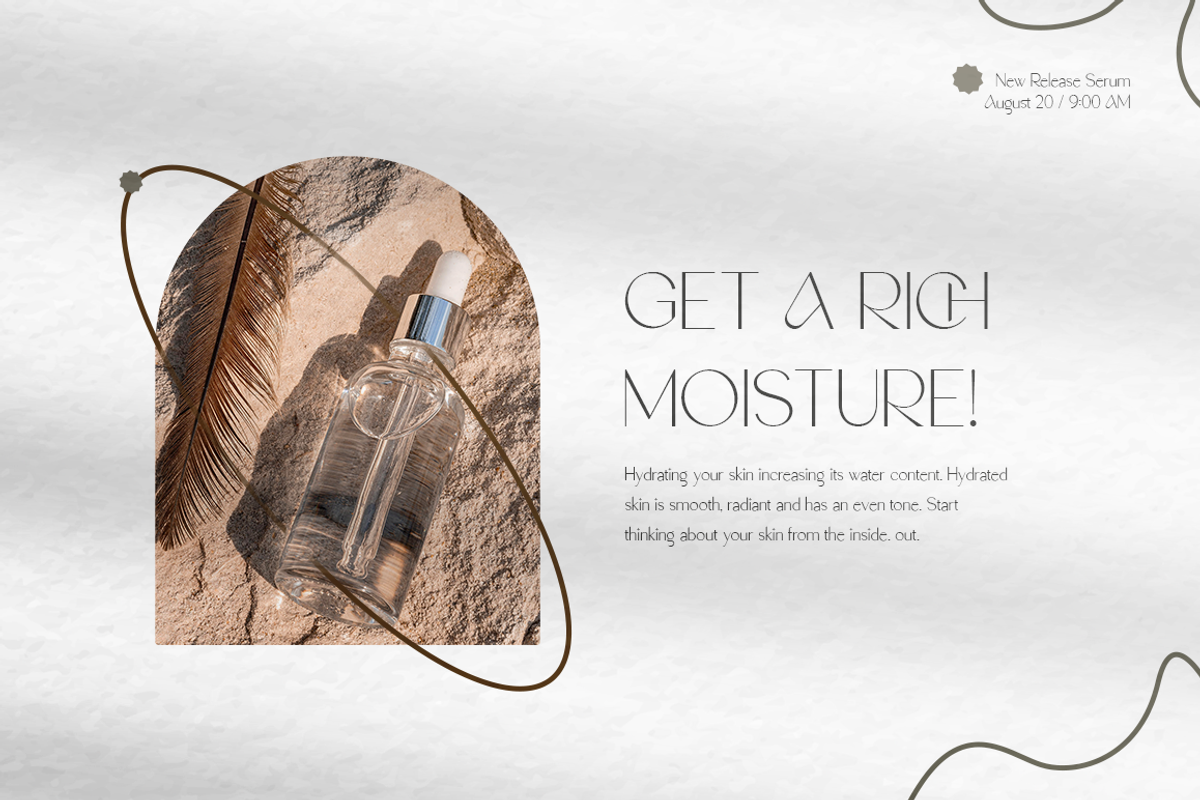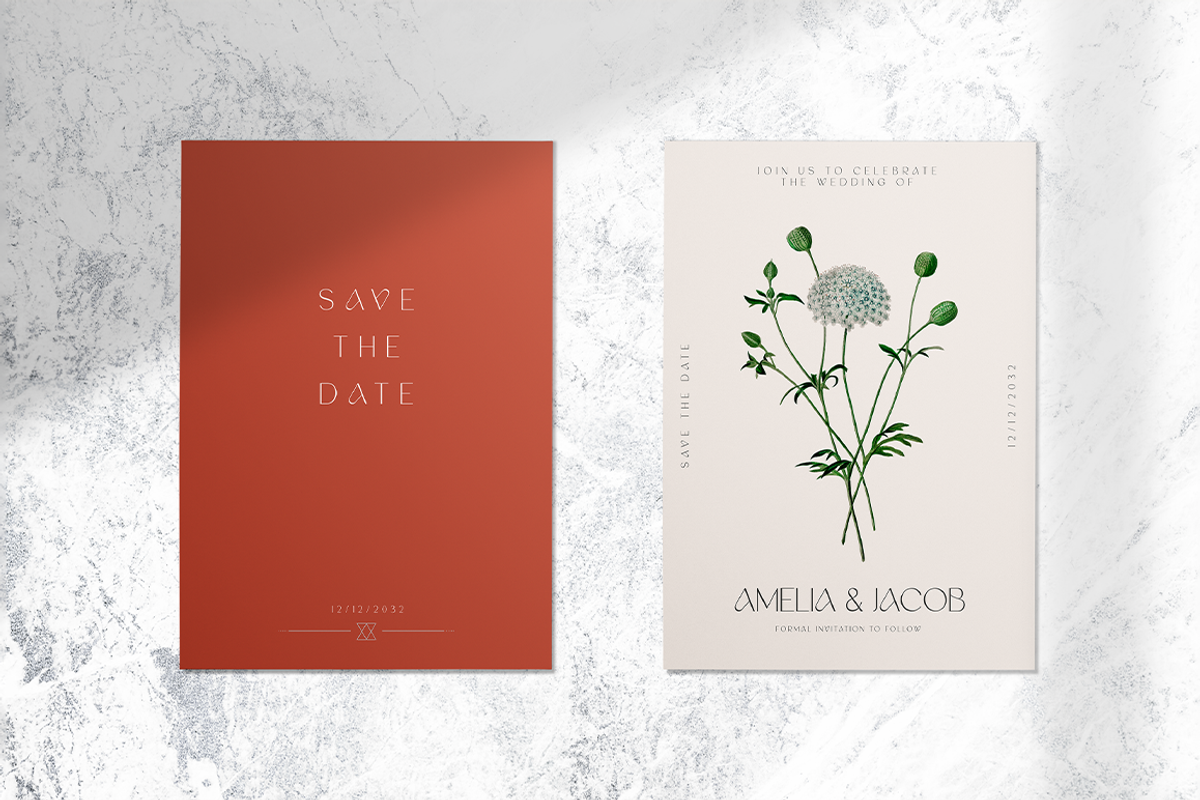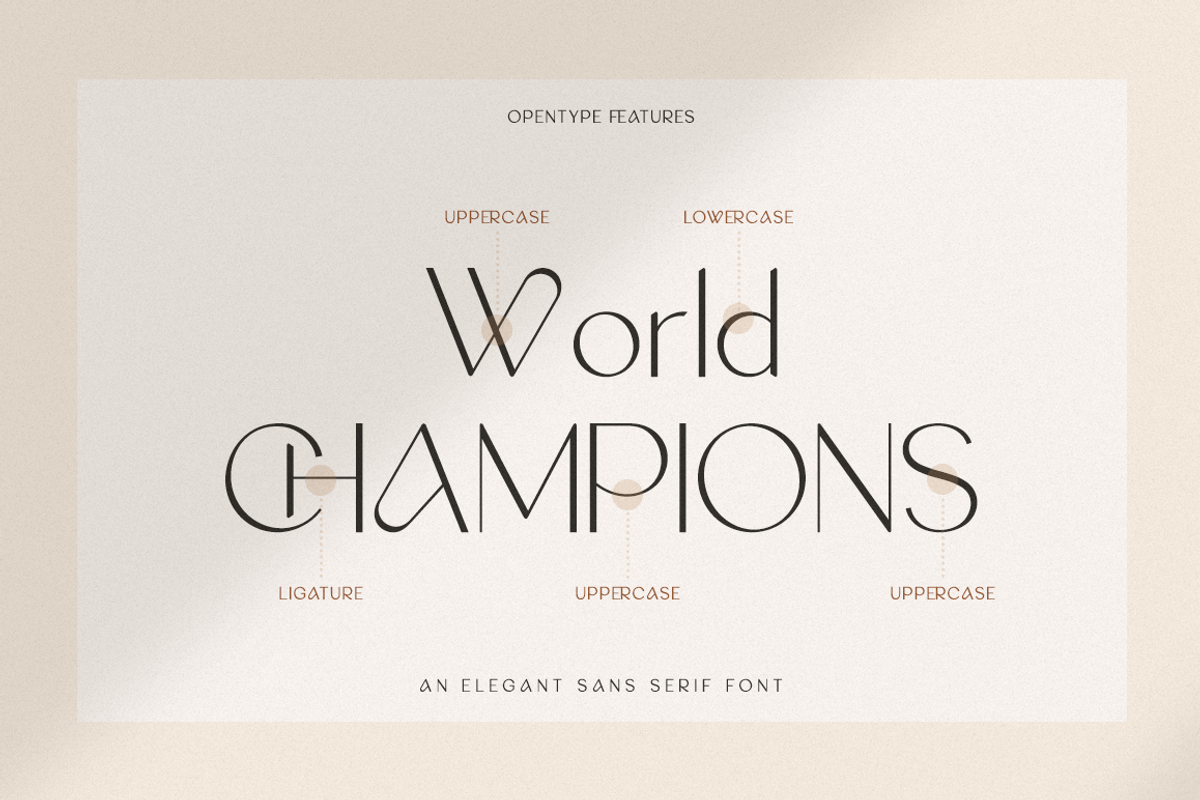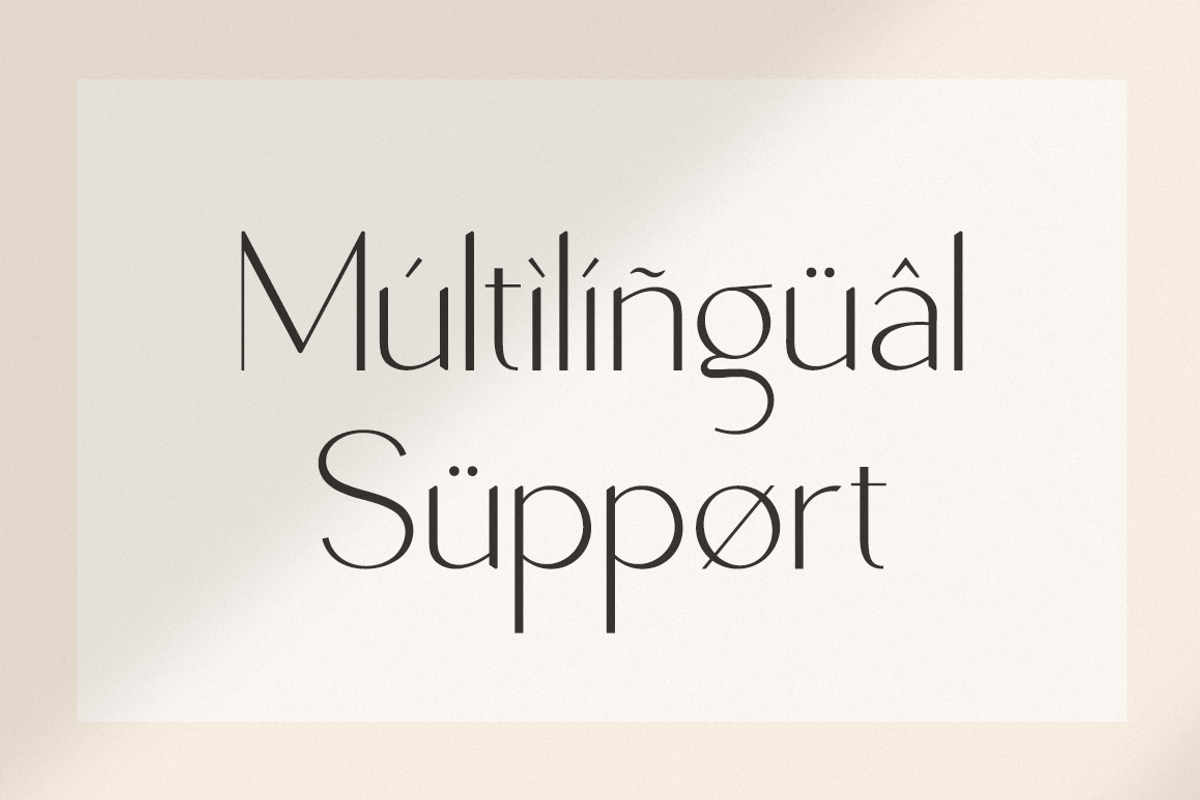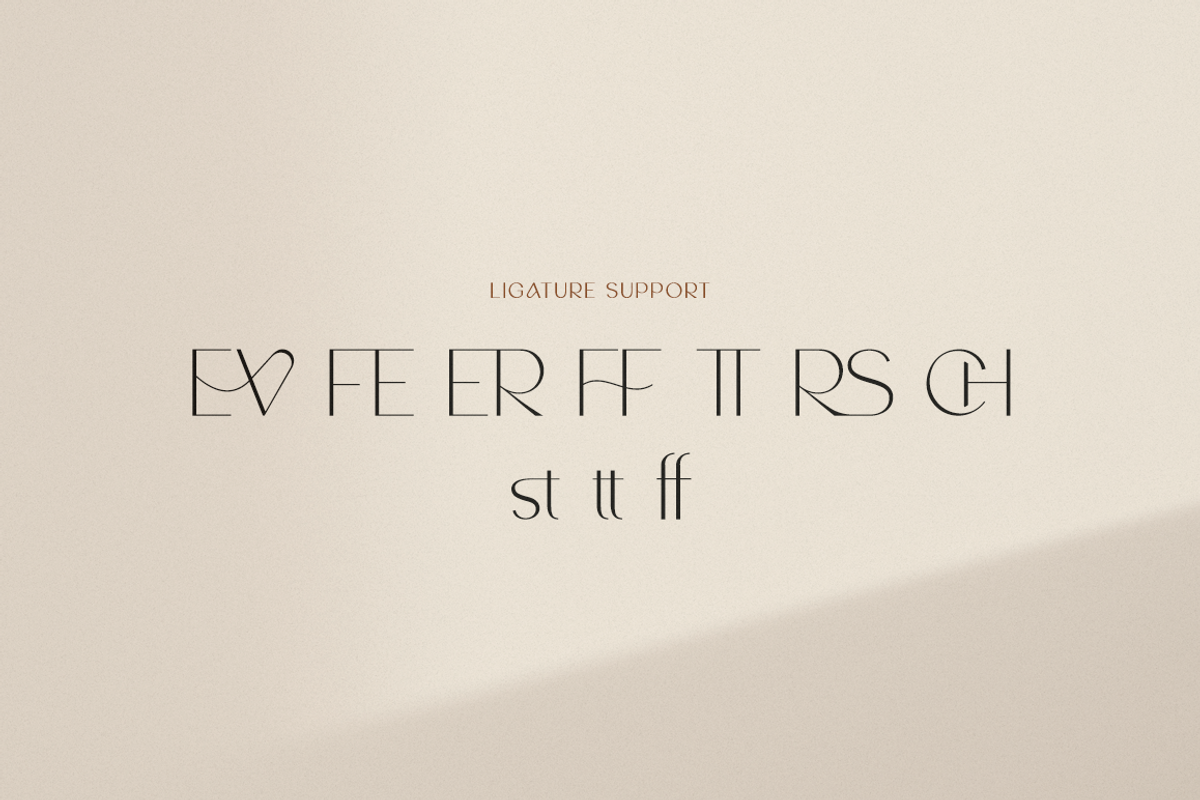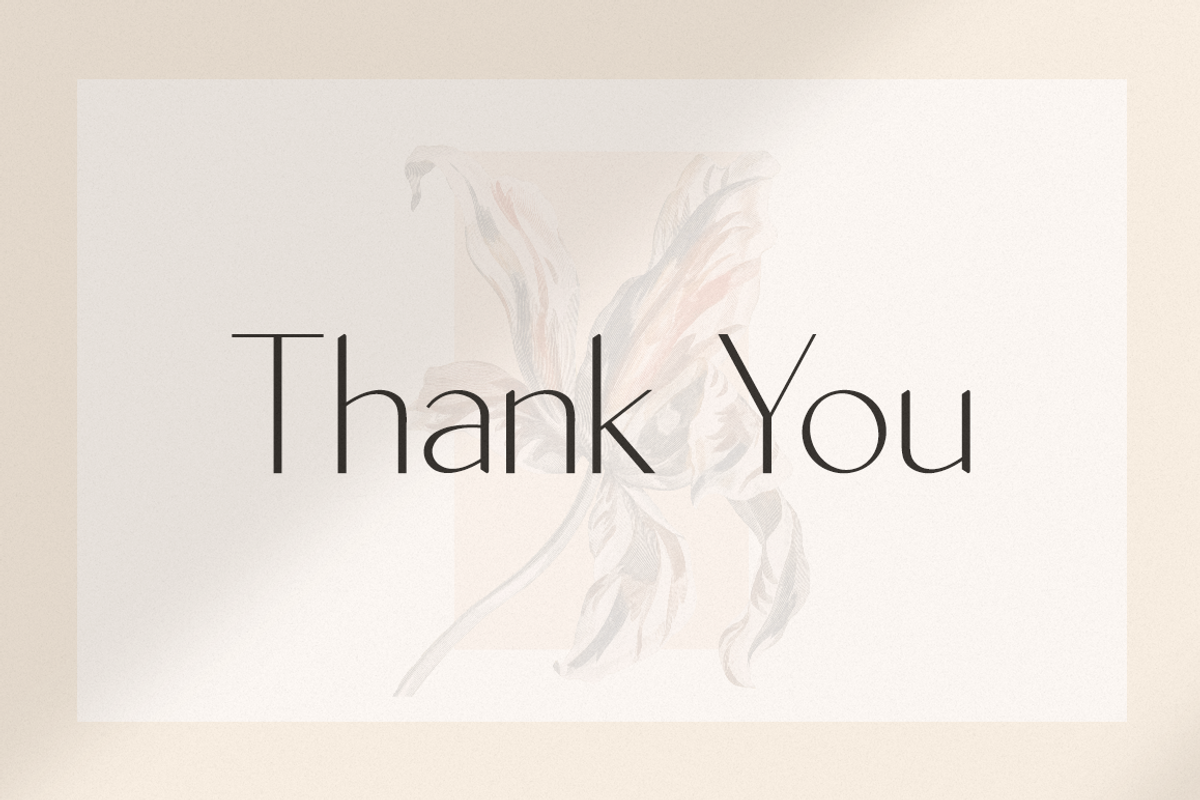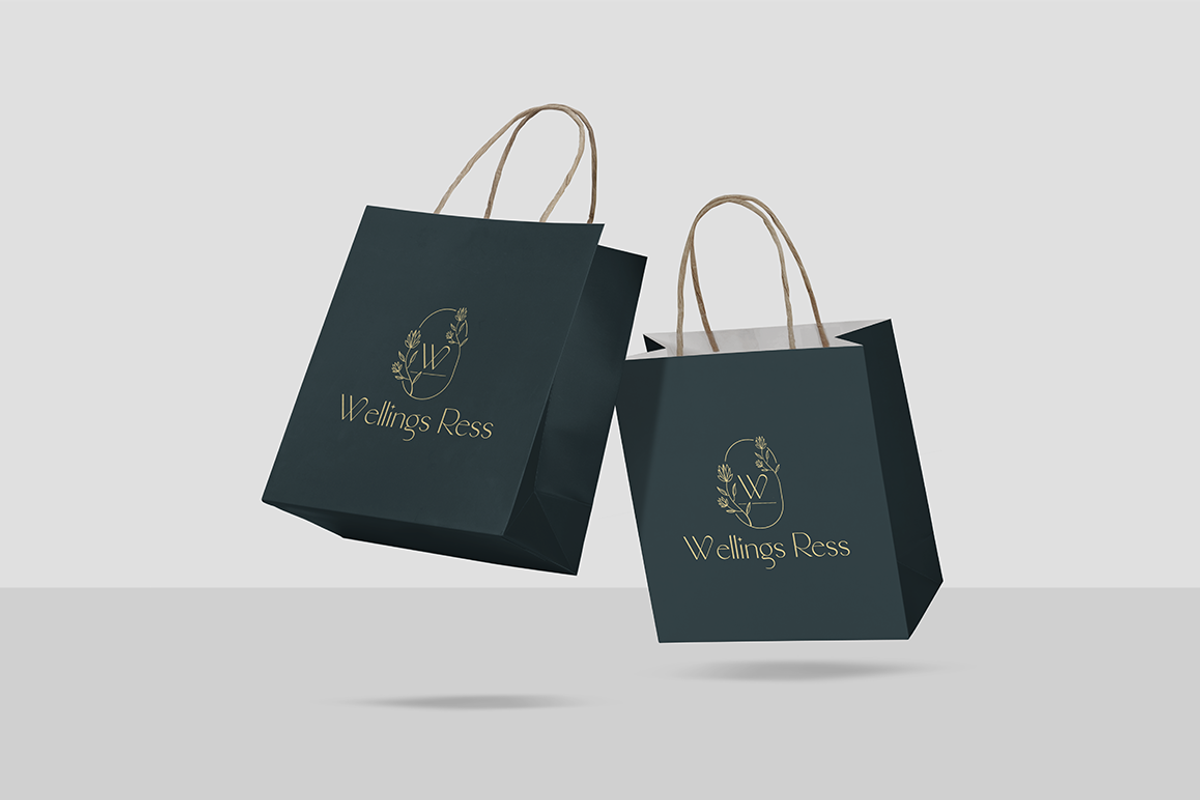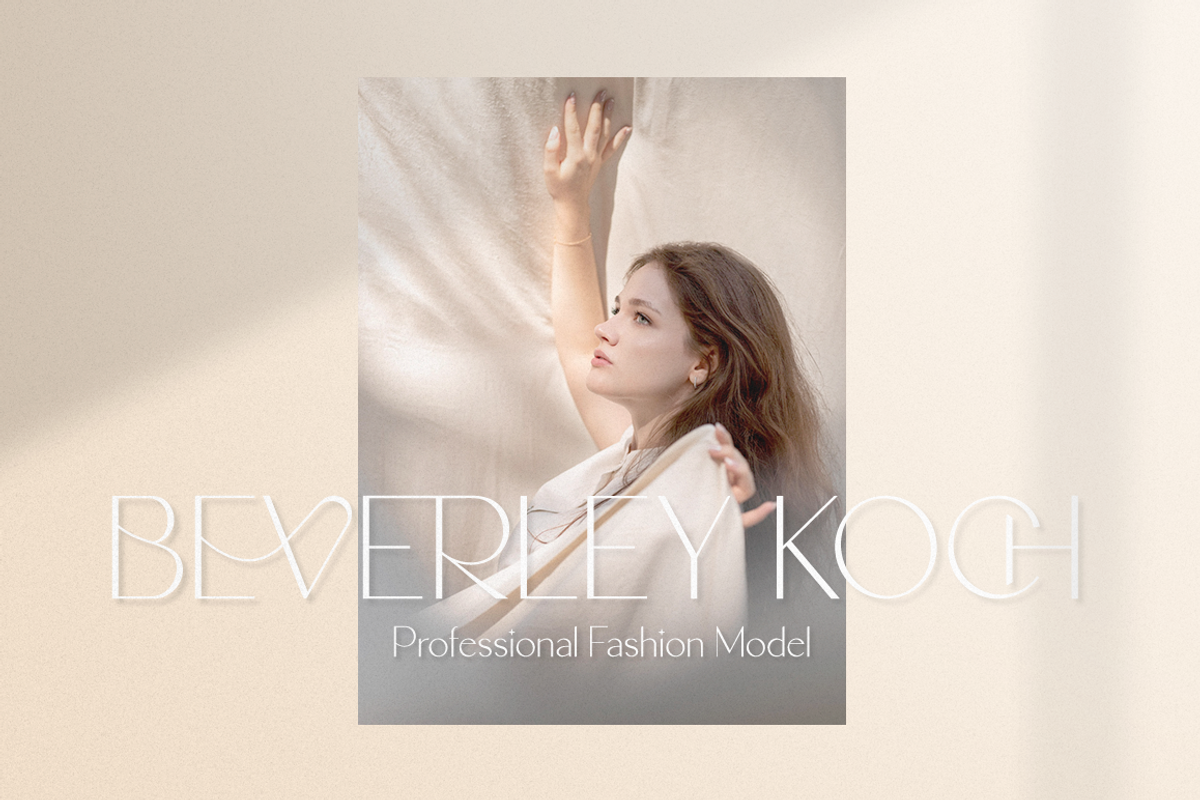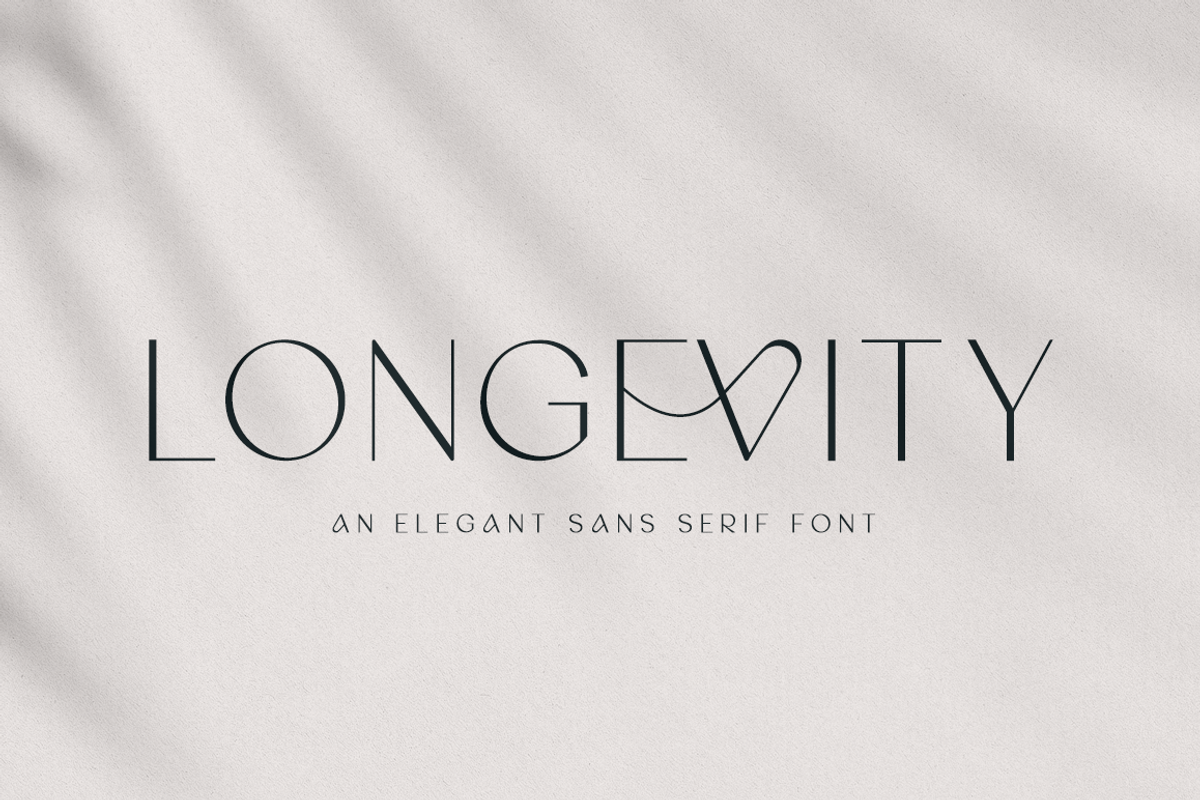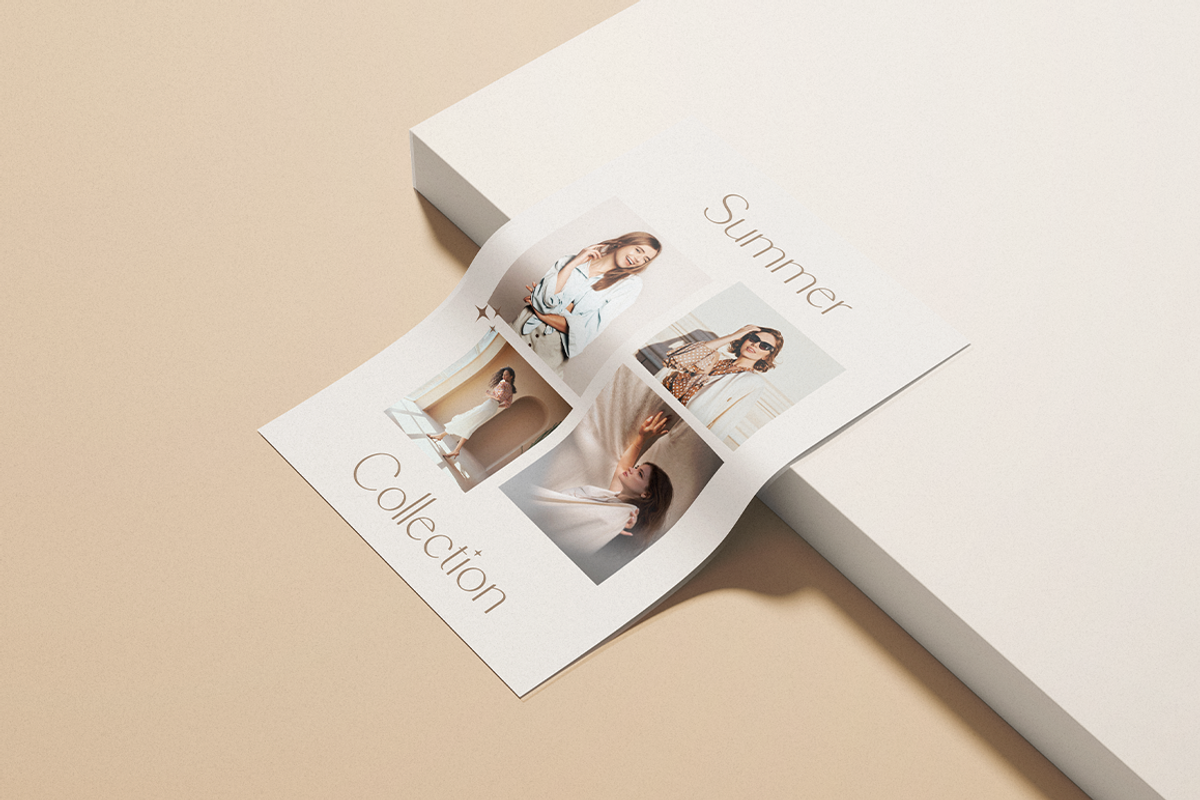
Longevity - Modern Stylish
Longevity is an elegant sans serif font. It is PUA encoded which means you can access all of the glyphs and swashes with ease! Longevity will elevate a wide range of crafting ideas, from cards, to branding, labels and much more.